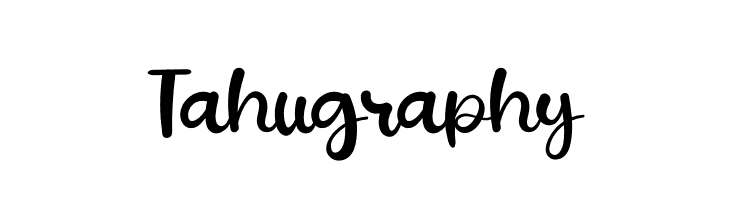
A decorative font featuring tangram-style bird shapes for each character.
A bold, geometric font with a digital display style and high contrast.
A bold, geometric 3D font with a futuristic and digital aesthetic.
Tangram-inspired abstract characters with geometric shapes.
An elegant, cursive font with a fluid, calligraphic style.
A graceful, cursive script font with elegant, flowing characters.
A graceful and fluid script font with elegant, connected strokes.
A bold, geometric font with sharp angles and a futuristic design.
A bold, intricate Blackletter-style font with elaborate flourishes.
A playful, rounded font with a hand-drawn feel and consistent bold strokes.
A geometric symbol/dingbat font with shield and circle-in-square icons.
A bold, geometric font with strong, uniform strokes and a modern style.
A bold, distressed font with a hand-painted, textured appearance.
A bold, angular Blackletter-style font with strong vertical emphasis.
A bold, angular Blackletter-inspired font with a modern contour effect.
A bold, blackletter-style font with sharp, angular lines and a gothic aesthetic.
A bold, shadowed font with a Gothic-inspired, angular design.
A clean, modern sans-serif font with uniform stroke width and rounded edges.
A clean, modern sans-serif font with consistent stroke width and excellent readability.
A bold, modern sans-serif font with strong, uniform strokes.
A bold, italicized sans-serif font with a modern and dynamic style.
A bold, modern sans-serif font with strong, uniform strokes.
A bold, modern sans-serif font with clean lines and strong visual impact.
A bold, italicized sans-serif font with a modern and dynamic style.
A bold, geometric sans-serif font with a modern and impactful style.
A bold, italicized sans-serif font with a modern and dynamic appearance.
A sleek, extra-light, italic sans-serif font with a modern and elegant style.
A modern, italic sans-serif font with clean lines and balanced spacing.
A modern sans-serif font with an italic slant, offering a sleek and dynamic look.
A modern, light sans-serif font with excellent readability.